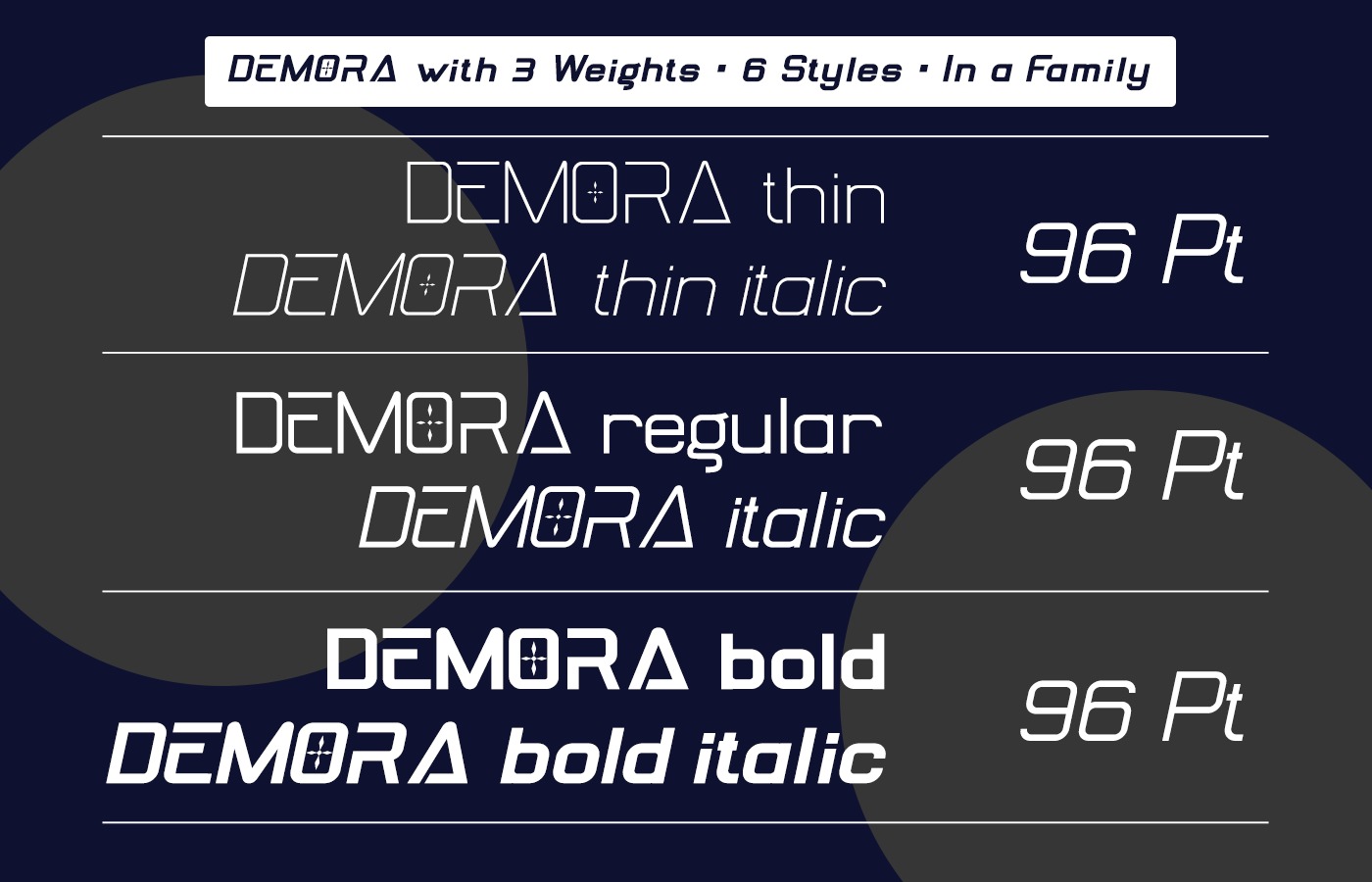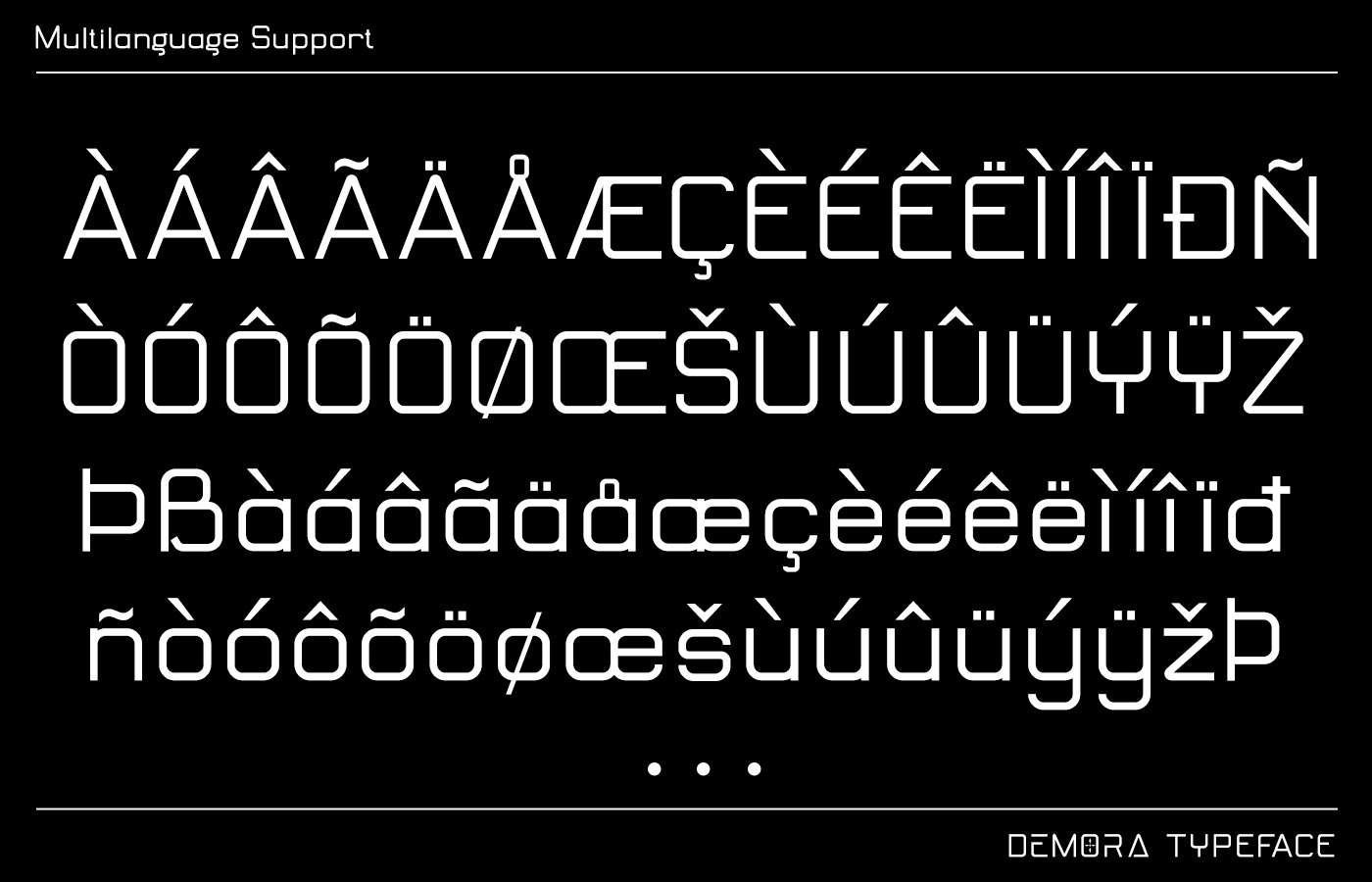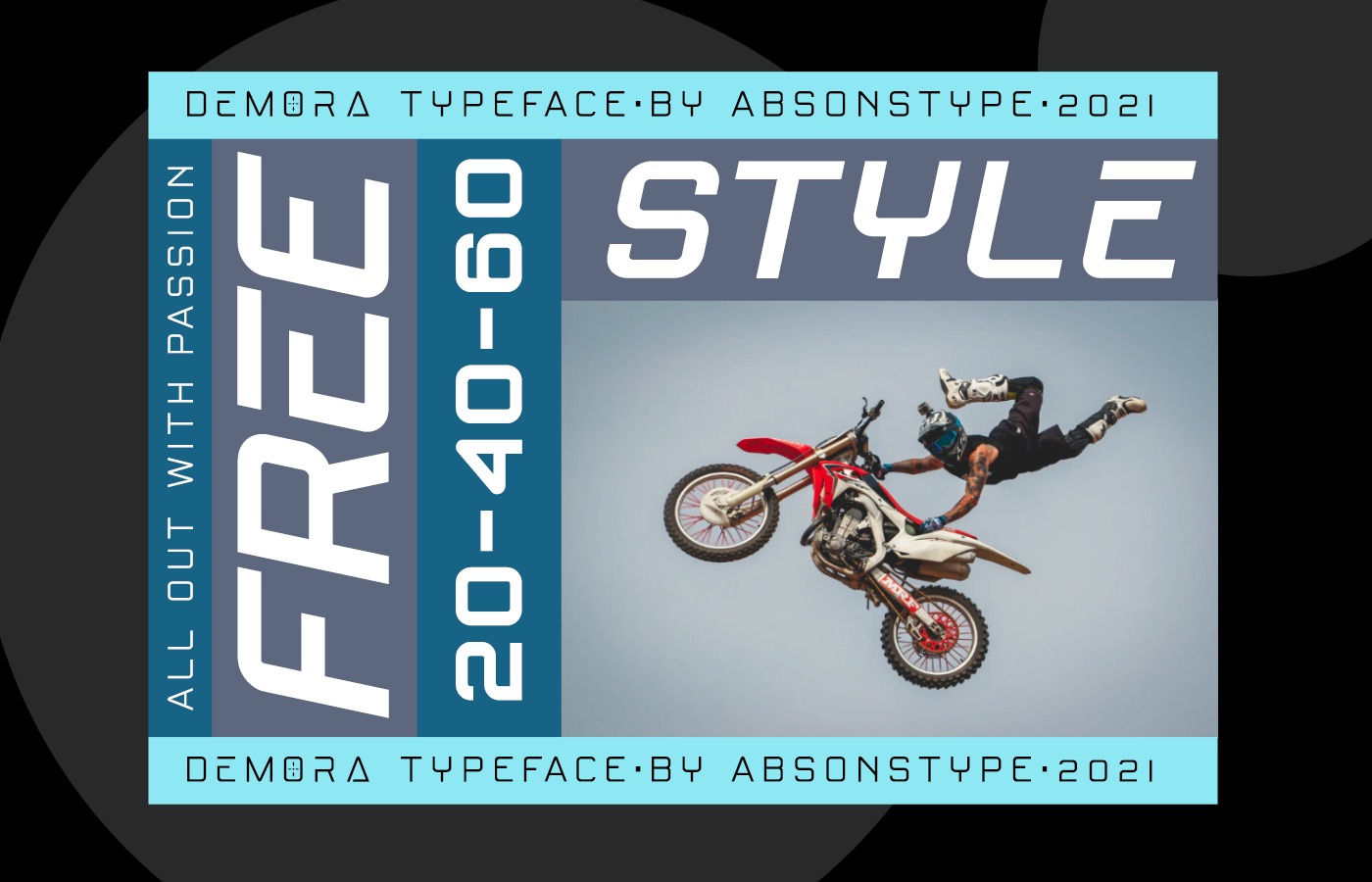
DEMORA Font
This font is the sporty sans serif style with uppercase and lowercase looks and feel nice balanced. Provide alternates and ligatures variant style make the design letter looks nice. Honestly it works perfectly for headlines, logos, posters, packaging, T-shirts and much more.